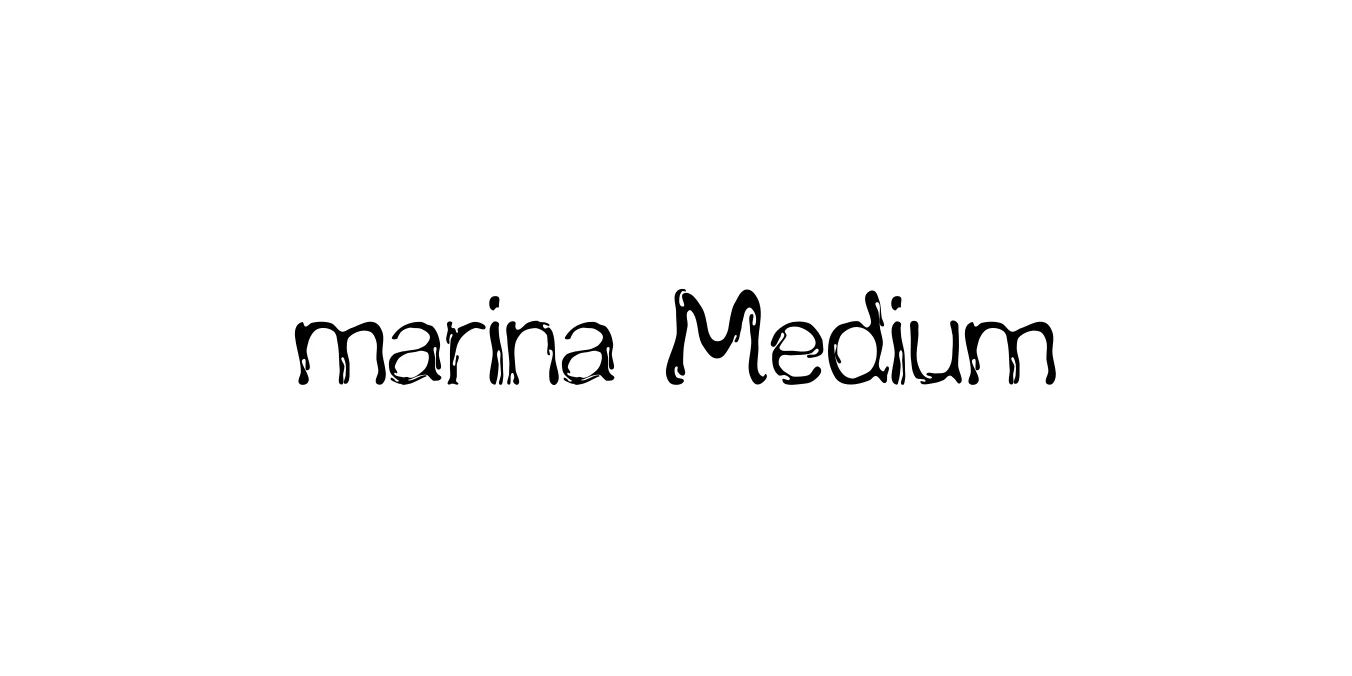
marina Medium
Designed by Vic Carless
| Category | Display / Script |
| Designer | Vic Carless |
| Similar Fonts | Mistral, Brush Script, Kaufmann, Sign Painter |
Marina Medium is a classic display typeface that originally gained prominence as part of the Letraset collection in the early 1970s. Designed by Vic Carless, this font is celebrated for its fluid, rhythmic strokes and distinct retro personality. It bridges the gap between structured sans-serifs and expressive scripts, offering a unique aesthetic that captures the breezy, artistic spirit of the era in which it was conceived.
Over the decades, Marina Medium has evolved from its dry-transfer roots into a digital favorite for designers seeking a touch of vintage sophistication. Its medium weight is specifically engineered to provide excellent legibility without sacrificing its decorative charm. The typeface is particularly effective in settings where a sense of nostalgia or hand-crafted elegance is desired, making it a versatile tool for both print and digital media.
marina Medium Best Uses
Creating unique, high-personality logos and identity systems.
Eye-catching headlines for magazines and feature stories.
Creating stylish overlays for Instagram posts and Pinterest graphics.
Adding a sophisticated, semi-formal touch to event stationery.